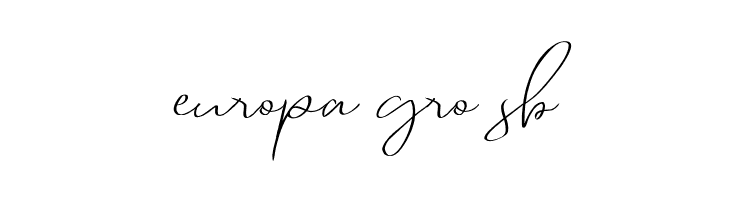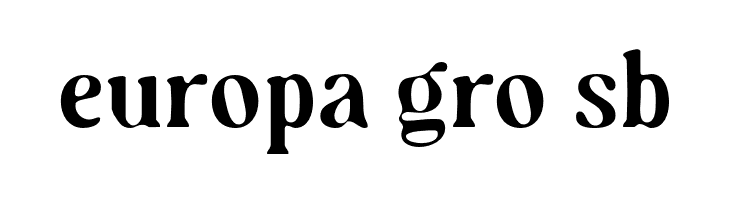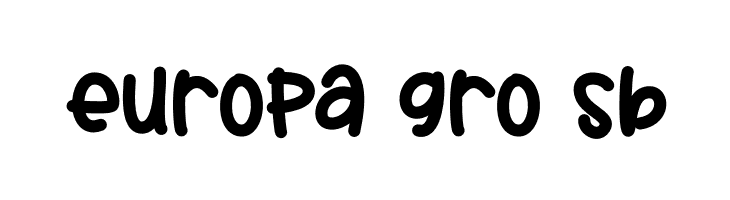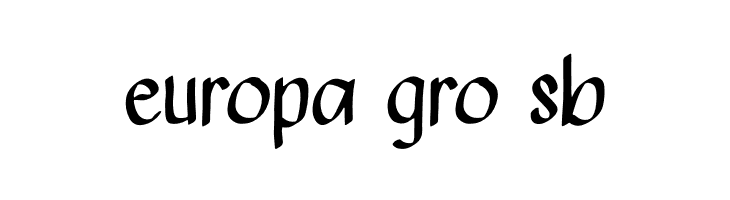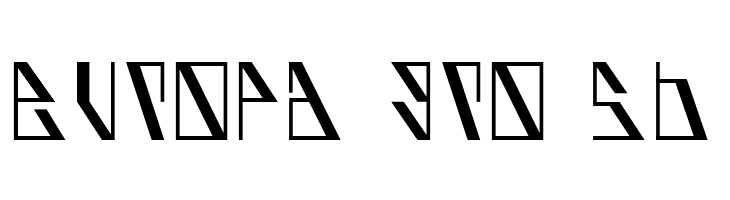
A playful, rounded font with a hand-drawn, whimsical style.
A playful, bold font with rounded, bubbly characters and a hand-drawn feel.
A graceful and elegant script font with fluid lines and delicate curves.
A bold, expressive font with classic yet modern appeal and unique flourishes.
A bold, geometric font with a modern, futuristic design.
Illustrative construction-themed dingbat font.
Casual handwritten-style font.